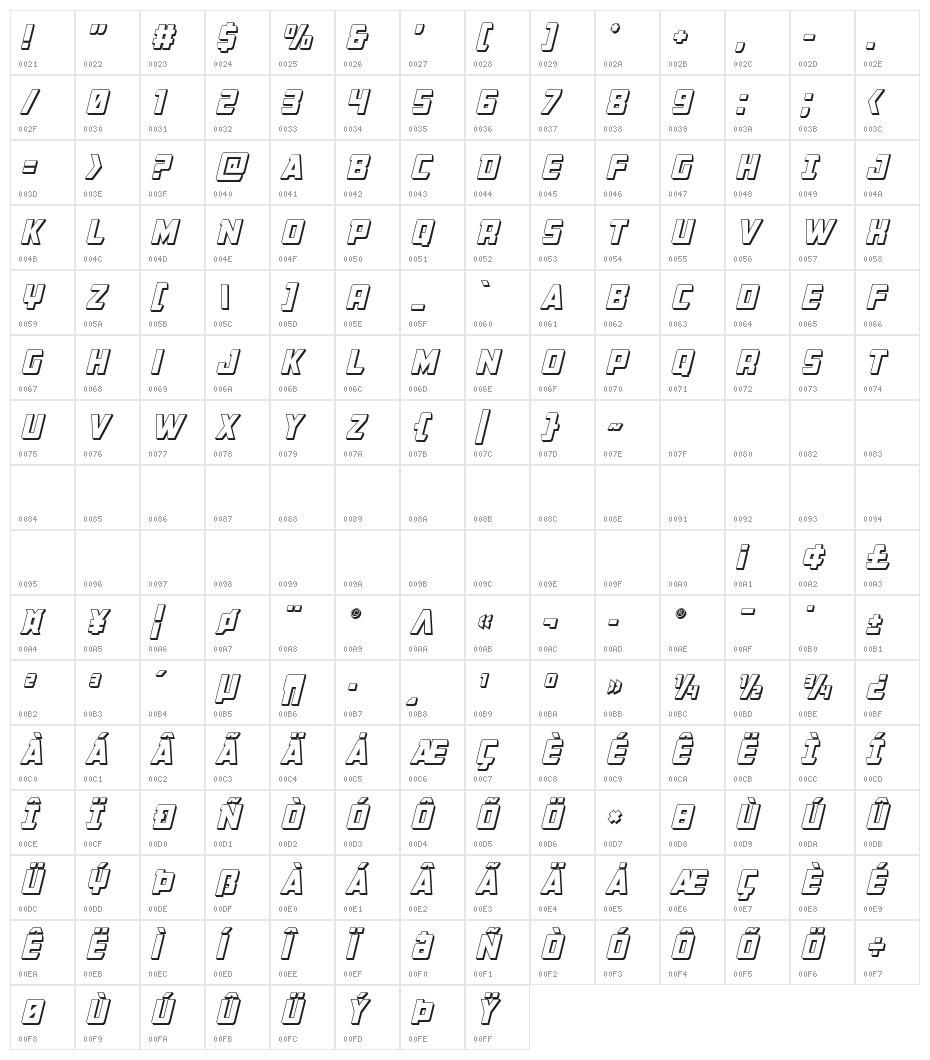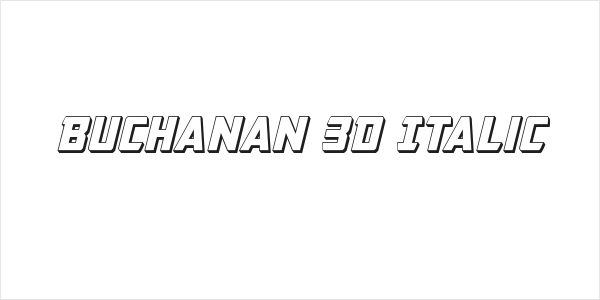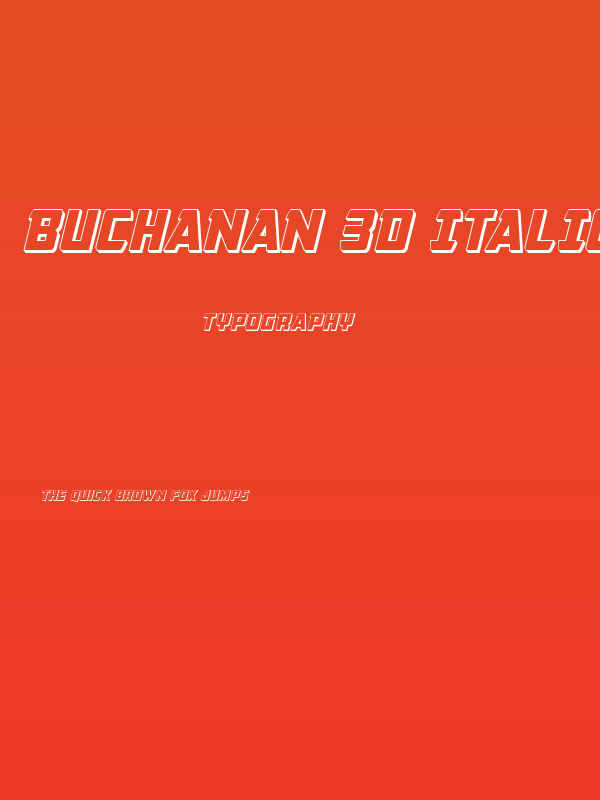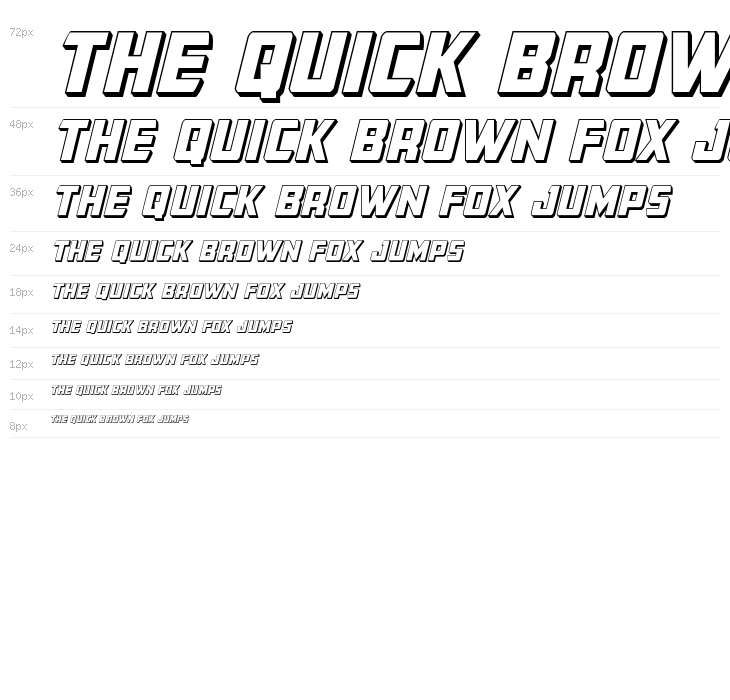
Buchanan 3D Italic Font
Buchanan 3D Italic Description
This font features a bold, three-dimensional design with a distinct italic slant, giving it a dynamic and modern appearance. The characters are outlined, creating a shadow effect that enhances the 3D illusion. The uppercase letters are consistent in height and width, providing a uniform look across the alphabet. The numerals and special characters maintain the same stylistic approach, ensuring cohesion throughout. The font's strong presence makes it ideal for attention-grabbing headlines and titles.